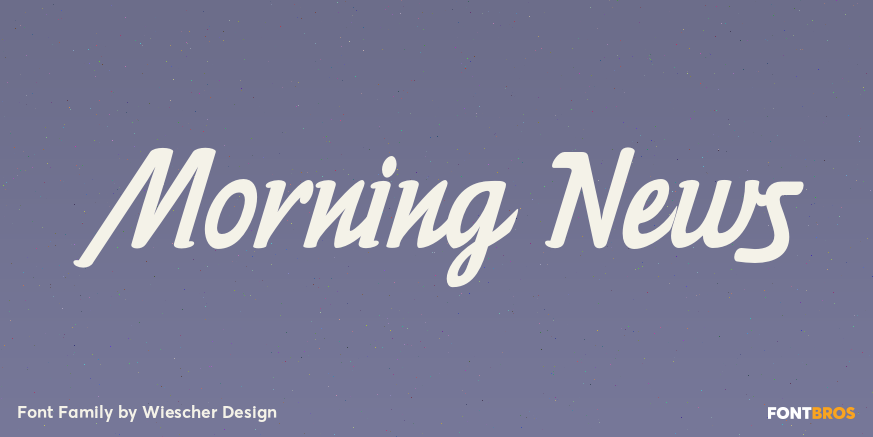
Morning News
About Morning News
Morning News is the sister font of Evening News which I designed some years ago for use with my local newspaper Abendzeitung. Morning News is an adaption, a little bit rounder, which gives the font a much softer touch. The general design dates back to…